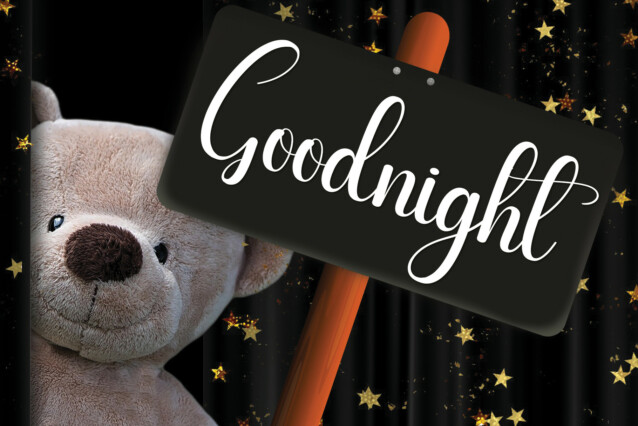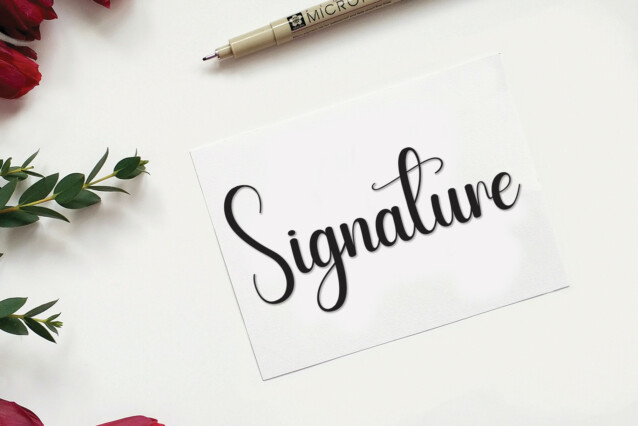
Sweetheart Font
Sweetheart Font is a romantic and sweet calligraphy typeface with characters that dance along the baseline. It will add a luxury spark to any design project that you wish to create!